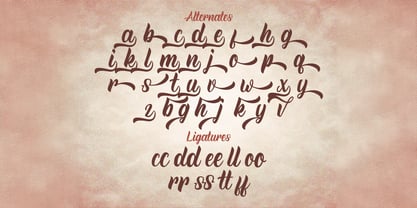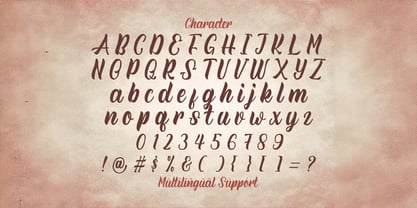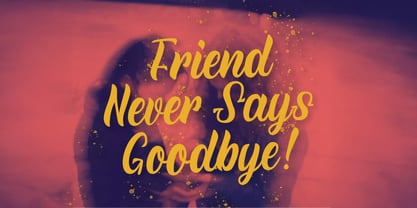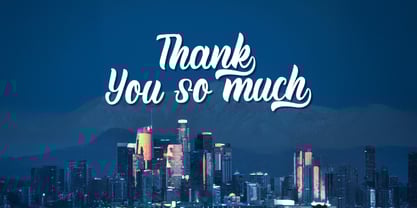
The Rineghan Font Family was designed by Virgiawan Listanto and published by Stringlabs Creative Studio. Rineghan contains 1 styles. More about this family
Rineghan is a bold script font with powerful curves and an energetic flow. Designed to stand out, Rineghan blends the elegance of script lettering with strong, confident strokes making it perfect for designs that demand attention and style. Ideal for branding, headlines, apparel, and bold statements, Rineghan brings a modern, expressive touch with vintage roots and a fearless personality.
Designers: Virgiawan Listanto
Foundry: Stringlabs Creative Studio
Rineghan